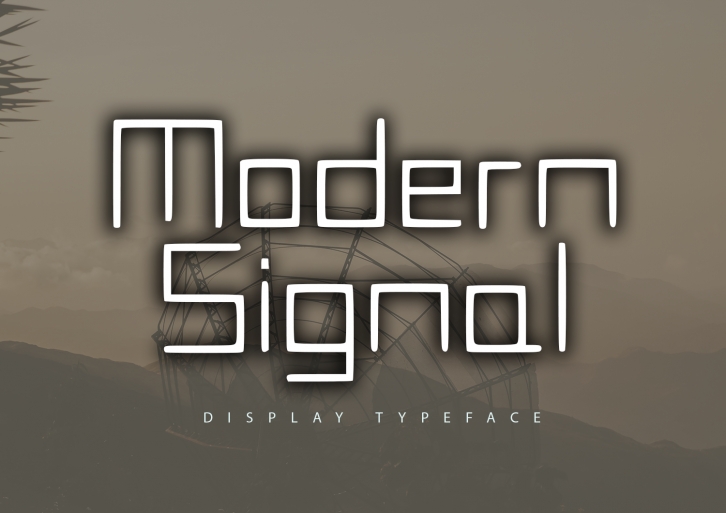
Modern Signal is a modern look display typeface. This typeface can be used for branding, posters, apparel, merchandise, stickers, or anything that needs a modern and robotic look.